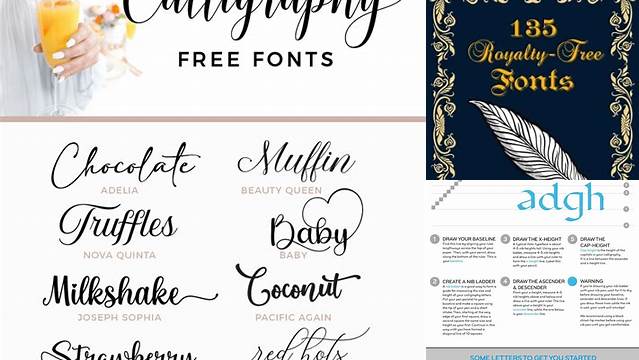
Free Calligraphy Fonts: A Guide For Commercial Use
Hey guys! Are you on the hunt for some stunning calligraphy fonts that you can use for your projects without worrying about licensing fees? You've come to the right place! In this comprehensive guide, we'll dive deep into the world of commercial-free calligraphy fonts, exploring what they are, where to find them, and how to use them effectively. Whether you're a seasoned designer or just starting, understanding the landscape of free-for-commercial-use fonts is crucial for creating beautiful and legally sound designs. Let's get started!
Font Squirrel: Font Squirrel is another fantastic resource for finding commercial-free fonts. They have a strict policy of only listing fonts that are truly free for commercial use, so you can browse their selection with confidence. The site also offers a handy Font Identifier tool, which can help you identify a font you've seen in an image. This is super useful if you come across a beautiful calligraphy font but don't know its name. Font Squirrel’s interface is intuitive, and they regularly update their library with fresh and exciting fonts.
DaFont: DaFont is a very popular font website with a massive collection of fonts. However, it's important to note that not all fonts on DaFont are free for commercial use. You'll need to carefully check the license for each font before using it in a commercial project. The site categorizes fonts by style, making it easier to find calligraphy fonts. Look for fonts labeled as "100% Free" or check the license details provided by the font author. DaFont is a great place to discover unique and creative calligraphy fonts, but always exercise caution and verify the license.
Creative Fabrica (Freebies Section): Creative Fabrica is a subscription-based platform for design resources, but they also have a freebies section where they offer a selection of free fonts, graphics, and other design assets. These freebies often include commercial-free calligraphy fonts, and the selection changes regularly. Keep an eye on their freebies section to snag some amazing fonts. Creative Fabrica is known for its high-quality resources, so you can expect to find some real gems in their free offerings.
Conclusion: Unleash Your Creativity with Commercial-Free Calligraphy Fonts
So there you have it, guys! A comprehensive guide to commercial-free calligraphy fonts. We've covered everything from understanding different font licenses to finding the best websites for free fonts and tips for using them effectively. With the right knowledge and resources, you can unleash your creativity and create stunning designs without breaking the bank. Just remember to always double-check the license agreement before using a font in a commercial project, and have fun experimenting with different styles and combinations. Happy designing!